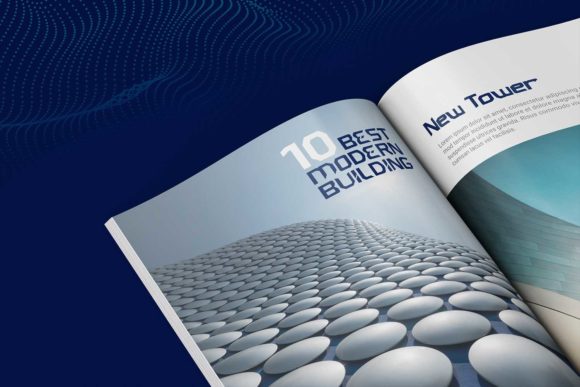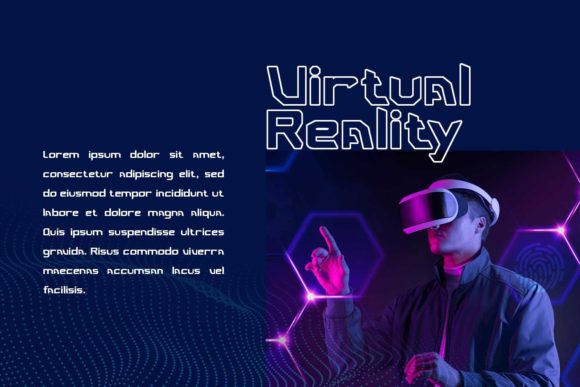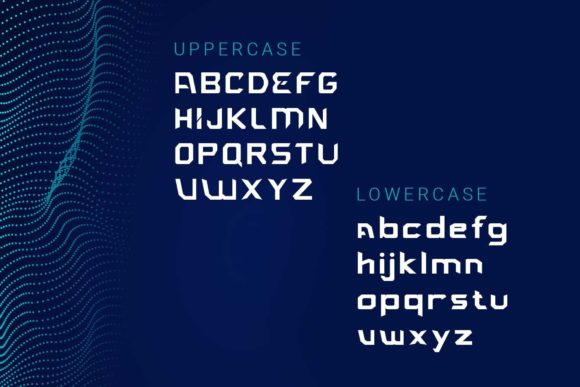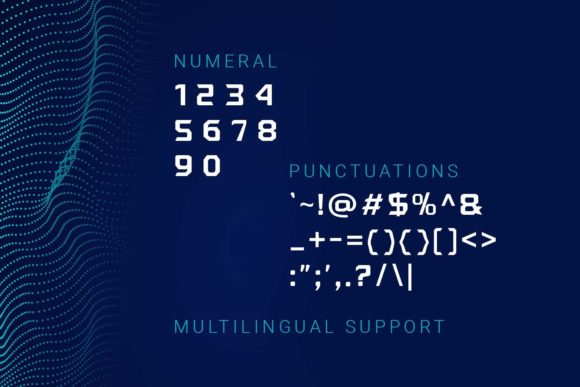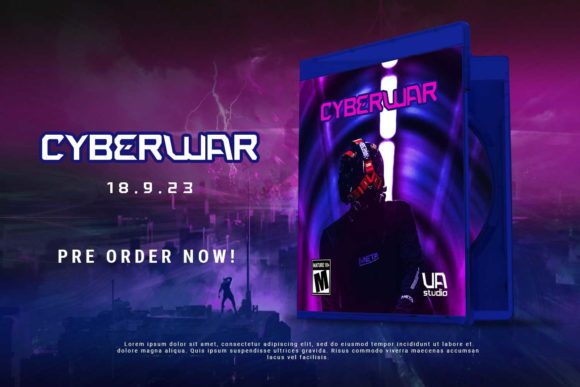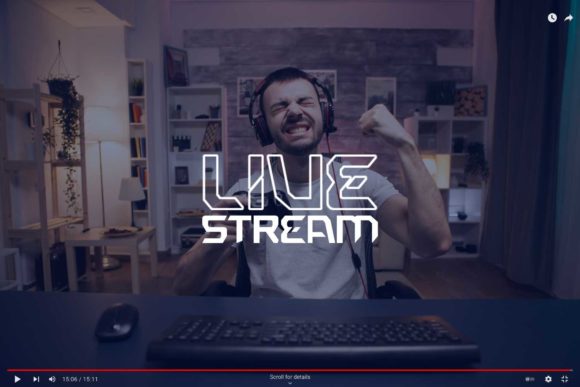
Introducing Breximova Font: The Ultimate Modern & Futuristic Display Font
In the world of design, fonts play a crucial role in conveying the tone and aesthetic of a project. For designers and crafters looking to create modern, futuristic, and tech-savvy content, Breximova Font is the perfect choice. This cutting-edge display font is designed to elevate your designs to the next level, making it ideal for projects that require a sleek and avant-garde look.
What is Breximova Font?
Breximova Font is a modern and futuristic display font that is specifically designed for projects that require a bold and techno feel. With its sleek lines and futuristic curves, this font is perfect for designers who want to create stunning posters, magazines, banners, logos, social media content, and video promotions that scream modernity and innovation.
Key Features of Breximova Font
- Modern and Futuristic Design: Breximova Font boasts a unique and futuristic design that is sure to grab attention. Its sleek lines and curves make it perfect for projects that require a modern and avant-garde look.
- Suitable for Various Themes: This font is versatile and can be used for a wide range of themes, including modern, future, science fiction, and technology. It’s also great for gaming and e-sport content, making it a favorite among gamers and e-sport enthusiasts.
- Highly Versatile: Breximova Font can be used for various design projects, including posters, magazines, banners, logos, social media content, and video promotions.
- Easy to Read: Despite its futuristic design, Breximova Font is easy to read, making it perfect for body text and headlines.
Use Cases for Breximova Font
Breximova Font is perfect for designers and crafters who want to create stunning designs that showcase their creativity. Here are some use cases for this amazing font:
- Posters and Flyers: Create eye-catching posters and flyers that grab attention with Breximova Font. Its modern and futuristic design makes it perfect for promoting events, products, or services.
- Magazines and Brochures: Add a touch of modernity to your magazines and brochures with Breximova Font. Its sleek design makes it perfect for creating engaging and informative content.
- Logos and Branding: Create stunning logos and branding materials with Breximova Font. Its unique design makes it perfect for tech-savvy brands that want to stand out.
- Social Media Content: Elevate your social media content with Breximova Font. Its modern design makes it perfect for creating engaging and shareable content.
- Video Promotions: Add a techno feel to your video promotions with Breximova Font. Its futuristic design makes it perfect for creating stunning video content that grabs attention.
Why Choose Breximova Font?
With so many fonts available, why choose Breximova Font? Here are some reasons why designers and crafters love this font:
- Unique Design: Breximova Font boasts a unique and futuristic design that sets it apart from other fonts.
- Highly Versatile: This font is versatile and can be used for various design projects, making it a great addition to any designer’s toolkit.
- Easy to Read: Despite its futuristic design, Breximova Font is easy to read, making it perfect for body text and headlines.
- Perfect for Modern Designs: Breximova Font is perfect for designers who want to create modern and tech-savvy designs that showcase their creativity.
In conclusion, Breximova Font is the ultimate modern and futuristic display font for designers and crafters. Its unique design, versatility, and ease of use make it perfect for creating stunning designs that showcase creativity. Whether you’re designing posters, magazines, banners, logos, social media content, or video promotions, Breximova Font is the perfect choice. So why wait? Download Breximova Font today and elevate your designs to the next level!